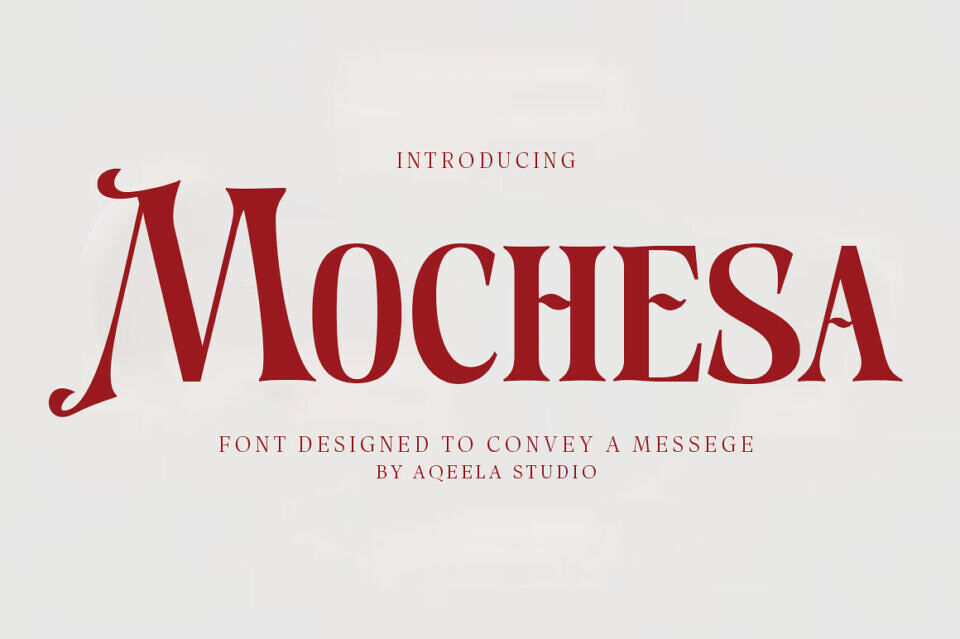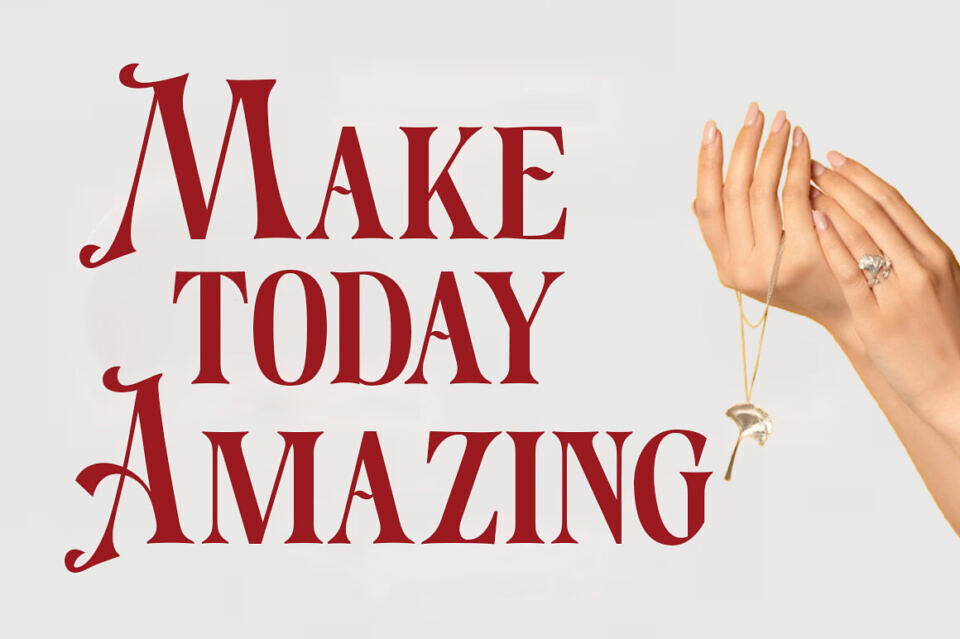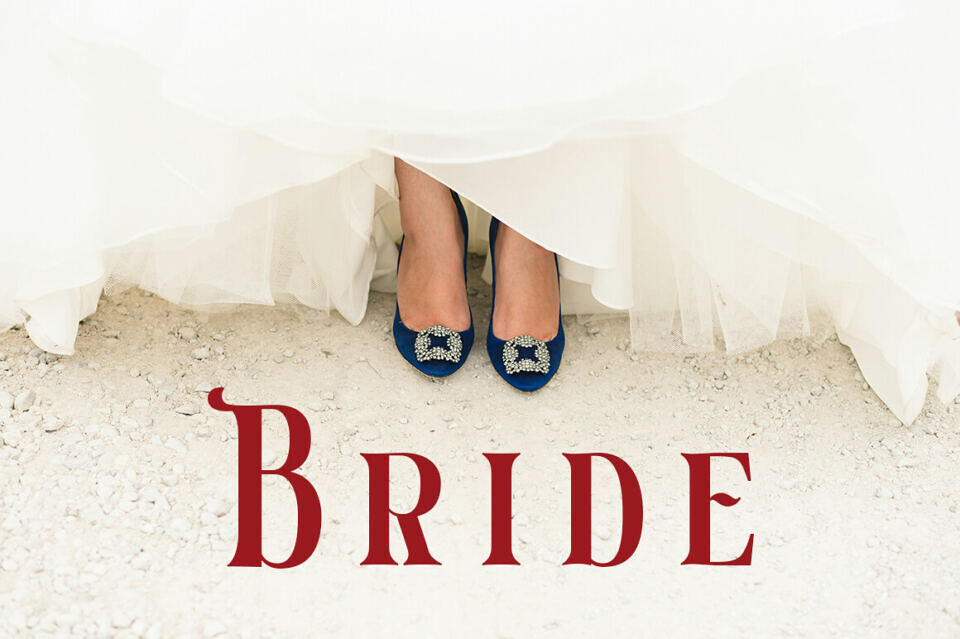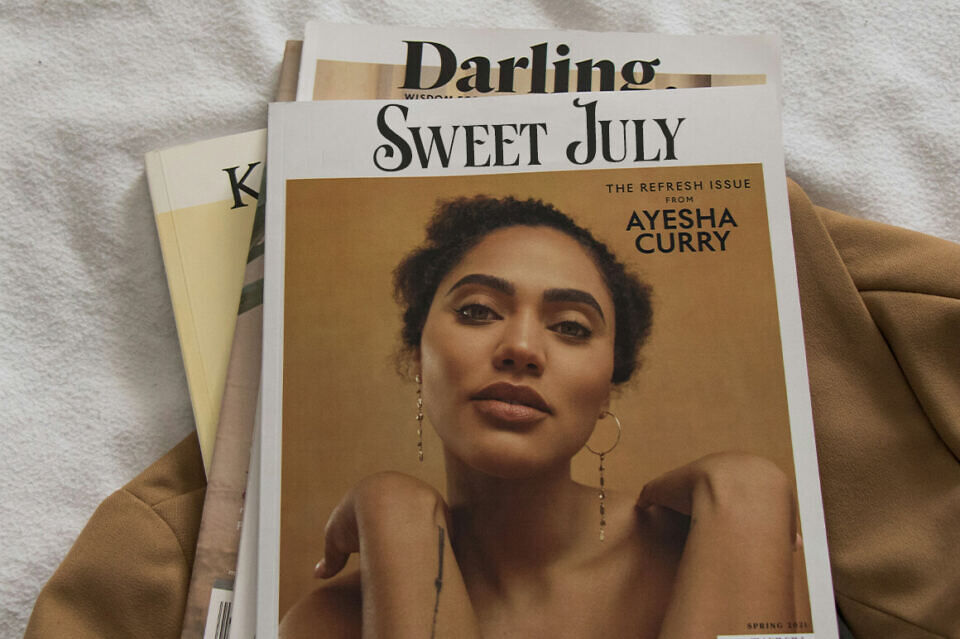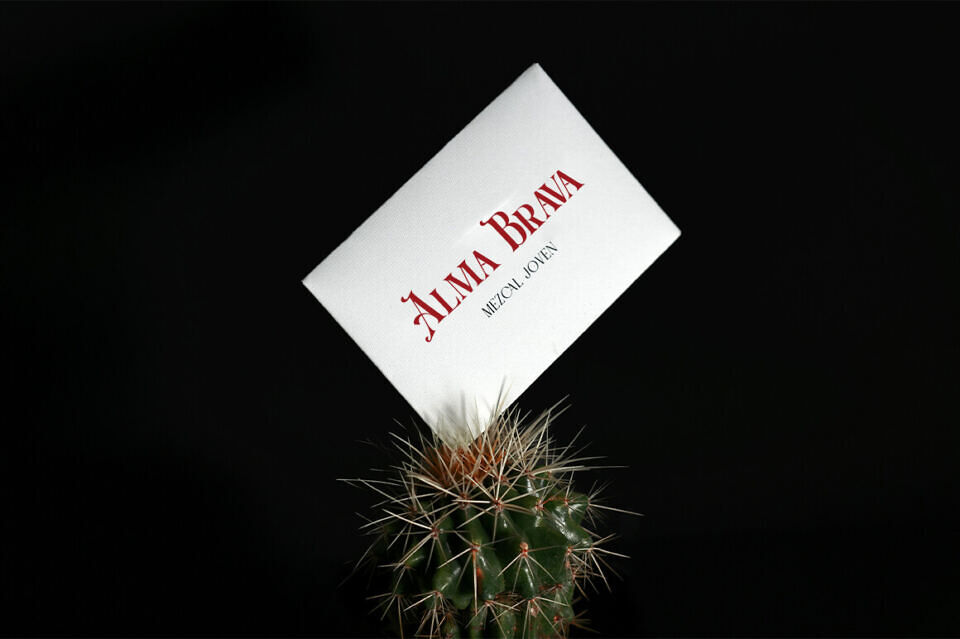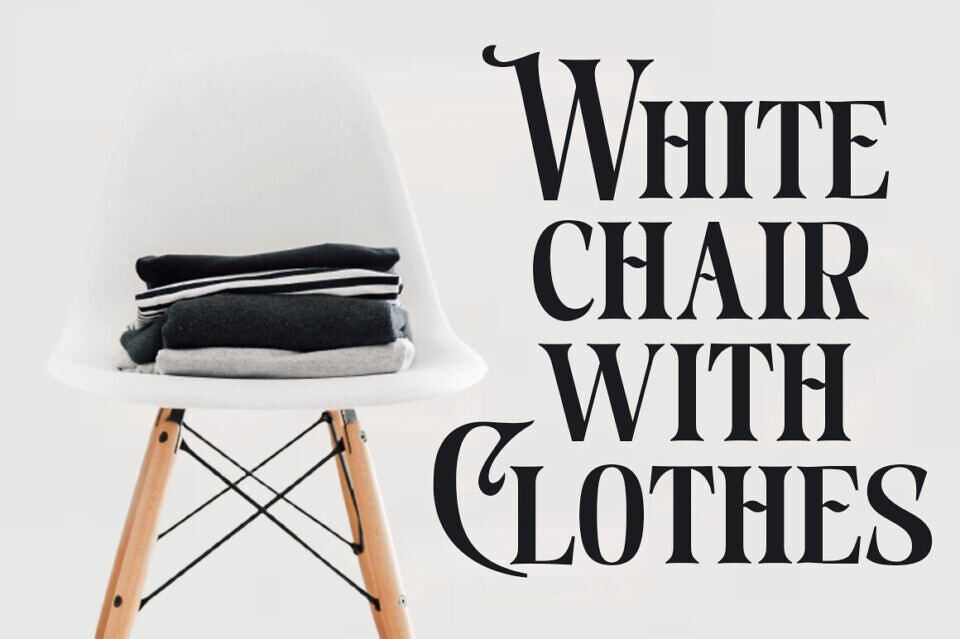
Mochesa Font
Mochesa is a font that whispers tales of bygone elegance with a modern twist. Its high-contrast strokes and distinctive serifs, particularly the dramatic curves on letters like “M,” create a captivating visual dance between classic and contemporary.
Think of it as a vintage gown reimagined for the modern muse – a touch of drama, a dash of sophistication, and a whole lot of personality. Mocesa isn’t just a font; it’s a statement, designed to lend an air of refined artistry to everything from luxury branding to editorial layouts.